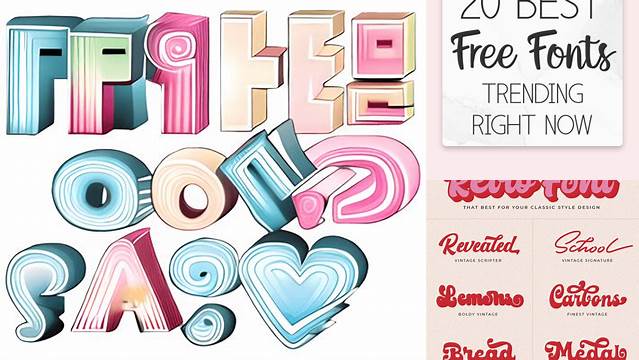
Lettering Font Free: Top Downloads For Creative Designs
Hey guys! Ready to dive into the awesome world of lettering fonts? Whether you're a seasoned designer or just starting out, having access to a variety of high-quality lettering fonts can seriously boost your creative projects. From elegant scripts to bold display fonts, the possibilities are endless. Let's explore where you can find some amazing lettering font free options and how to make the most of them. This guide will cover everything from the basics to more advanced tips, ensuring you're well-equipped to create stunning designs.
3. How to Identify High-Quality Free Lettering Fonts
Identifying high-quality free lettering fonts requires a keen eye and attention to detail. Start by examining the font's design characteristics, such as its consistency in weight, spacing, and letterforms. A well-designed font should have uniform thickness and balanced proportions, ensuring readability and visual appeal. Look for fonts that offer a complete character set, including uppercase and lowercase letters, numbers, punctuation marks, and symbols. Test the font in various sizes and contexts to assess its legibility and performance. Pay attention to the kerning (the spacing between letters) and adjust it if necessary to achieve optimal visual harmony. Moreover, consider the font's versatility and suitability for different design applications. A high-quality font should be adaptable to various styles and mediums, allowing you to use it effectively in diverse projects. Finally, read user reviews and ratings to get insights into the font's performance and reliability. A thorough evaluation process will help you distinguish between a mediocre font and a truly exceptional one.
4. Lettering Fonts Free for Cricut
For crafters and DIY enthusiasts using Cricut machines, finding lettering fonts free for Cricut is essential for creating personalized and unique projects. Cricut Design Space is compatible with a wide range of fonts, but not all fonts are optimized for cutting machines. When searching for fonts, prioritize those with clean lines and simple shapes to ensure smooth and precise cutting. Avoid fonts with overly intricate details or thin strokes, as these may be difficult for the Cricut to handle. Websites like FontBundles and Creative Fabrica often offer free font bundles specifically designed for crafters, including fonts that work well with Cricut machines. Additionally, you can upload your own fonts to Cricut Design Space, giving you even more flexibility and creative control. Before starting a project, always test the font on a small scale to ensure it cuts cleanly and accurately. Experiment with different materials and settings to achieve the best results. With the right lettering fonts, you can create stunning personalized gifts, home decor items, and more.
5. Lettering Fonts Free for Procreate
Procreate is a popular digital art application for iPad, and having access to a variety of lettering fonts free for Procreate can significantly enhance your artwork. Procreate allows you to import custom fonts, giving you the freedom to use any font you desire. When choosing fonts for Procreate, consider the style and mood of your artwork. Elegant scripts are perfect for creating sophisticated designs, while bold display fonts are ideal for making a statement. Websites like Creative Market and Design Cuts often offer free font packs that include fonts specifically designed for digital art. Additionally, you can find free fonts on websites like DaFont and FontSpace and import them into Procreate. To import a font, simply download the font file (usually in .otf or .ttf format) and open it on your iPad. Procreate will automatically recognize the font and add it to your font library. Experiment with different fonts and styles to find the perfect fit for your artwork. With the right lettering fonts, you can add a personal touch to your digital creations.
6. Calligraphy Lettering Fonts Free
Calligraphy lettering fonts free are perfect for adding an elegant and sophisticated touch to your designs. These fonts mimic the fluid strokes and graceful curves of traditional calligraphy, making them ideal for invitations, wedding stationery, and other special occasions. When searching for calligraphy fonts, look for those that capture the essence of hand-lettered calligraphy, with varying stroke widths and subtle flourishes. Websites like Font Squirrel and Google Fonts offer a selection of free calligraphy fonts that are suitable for both personal and commercial use. Some popular calligraphy fonts include Brush Script MT, Great Vibes, and Allura. Experiment with different calligraphy fonts to find the one that best suits your style and project. Use these fonts sparingly and in combination with simpler fonts to create a balanced and visually appealing design. Practice using these fonts in different sizes and colors to achieve the desired effect. With the right calligraphy font, you can create stunning and memorable designs.
7. Script Lettering Fonts Free
Script lettering fonts free are another excellent choice for adding a touch of elegance and personality to your designs. These fonts mimic the flowing, handwritten style of cursive writing, making them ideal for invitations, logos, and branding materials. When choosing script fonts, look for those that are easy to read and have a natural, flowing appearance. Avoid fonts with overly elaborate details or awkward connections between letters. Websites like DaFont and FontSpace offer a wide variety of free script fonts to choose from, ranging from classic styles to more modern and whimsical designs. Some popular script fonts include Pacifico, Lobster, and Dancing Script. Use script fonts sparingly and in combination with simpler fonts to create a balanced and visually appealing design. Experiment with different colors and sizes to achieve the desired effect. With the right script font, you can add a personal and inviting touch to your designs.
8. Vintage Lettering Fonts Free
Vintage lettering fonts free can transport your designs back in time, adding a touch of nostalgia and retro charm. These fonts often feature distressed textures, unique letterforms, and decorative elements that evoke the look and feel of vintage typography. When searching for vintage fonts, look for those that capture the essence of different eras, such as Art Deco, mid-century modern, and Victorian. Websites like MyFonts and Creative Market offer a wide selection of vintage fonts, some of which are available for free. Some popular vintage fonts include Playfair Display, Bebas Neue, and Oswald. Use vintage fonts to create eye-catching posters, logos, and packaging designs. Combine them with vintage-inspired illustrations and color palettes to create a cohesive and authentic look. Experiment with different textures and effects to enhance the vintage feel. With the right vintage font, you can create designs that stand out and capture the imagination.
9. Bold Lettering Fonts Free
For designs that demand attention, bold lettering fonts free are the way to go. These fonts feature thick, heavy strokes that make a strong visual impact, making them ideal for headlines, titles, and logos. When choosing bold fonts, look for those that are legible and have a balanced appearance. Avoid fonts that are overly condensed or have awkward proportions. Websites like Google Fonts and Font Squirrel offer a wide selection of free bold fonts that are suitable for both personal and commercial use. Some popular bold fonts include Montserrat, Open Sans, and Roboto. Use bold fonts to create eye-catching headlines and call-to-actions. Combine them with lighter fonts to create a contrast and hierarchy. Experiment with different colors and sizes to achieve the desired effect. With the right bold font, you can create designs that grab attention and make a lasting impression.
10. Modern Lettering Fonts Free
Modern lettering fonts free are characterized by their clean lines, geometric shapes, and minimalist design. These fonts are perfect for creating sleek and contemporary designs that appeal to a modern audience. When choosing modern fonts, look for those that are legible and have a balanced appearance. Avoid fonts that are overly decorative or have distracting elements. Websites like Behance and Dribbble often showcase free modern fonts that are created by talented designers. Some popular modern fonts include Lato, Raleway, and Poppins. Use modern fonts to create stylish logos, websites, and branding materials. Combine them with geometric shapes and minimalist layouts to create a cohesive and contemporary look. Experiment with different colors and typography techniques to achieve the desired effect. With the right modern font, you can create designs that are both visually appealing and effective.
11. Decorative Lettering Fonts Free
Adding flair to your designs is easy with decorative lettering fonts free. These fonts are designed to be visually striking and attention-grabbing, incorporating unique shapes, embellishments, and artistic elements that set them apart from standard typefaces. They're ideal for headlines, posters, and designs where you want to make a bold statement. Look for decorative fonts on sites like FontStruct and The League of Moveable Type. Remember to use them sparingly to maintain readability and avoid overwhelming your design. Some popular decorative fonts include Amatic SC, Bangers, and Luckiest Guy. Experiment with colors, shadows, and outlines to enhance their impact. Decorative fonts can transform an ordinary design into something truly memorable.
12. Handwritten Lettering Fonts Free
For a personal and intimate touch, handwritten lettering fonts free are the perfect choice. These fonts mimic the look and feel of natural handwriting, adding warmth and authenticity to your designs. They're great for invitations, thank you notes, and any project where you want to convey a sense of sincerity. Explore options on sites like 1001 Fonts and FontGet. Be sure to check the readability of each font before using it in your designs. Some popular handwritten fonts include Indie Flower, Patrick Hand, and Coming Soon. Use these fonts to create a personal connection with your audience, making them feel like you're speaking directly to them.
13. Cursive Lettering Fonts Free
Cursive lettering fonts free bring an elegant and flowing style to your designs, reminiscent of traditional penmanship. These fonts are ideal for invitations, wedding stationery, and projects that require a touch of sophistication. Look for options that offer smooth connections between letters and a natural rhythm. Sites like Creative Fabrica (freebies section) and FontBundles often have selections of cursive fonts. Be cautious when using them in body text, as readability can be challenging. Some popular cursive fonts include Arizonia, Black Jack, and Scriptina. Use these fonts to add a touch of class to your designs, making them stand out with their graceful curves and elegant flourishes.
14. Gothic Lettering Fonts Free
For a bold and dramatic look, gothic lettering fonts free are an excellent choice. These fonts, inspired by medieval calligraphy, feature strong, angular shapes and intricate details. They're perfect for creating a sense of power and mystery, making them ideal for posters, book covers, and designs with a dark or edgy theme. Find these fonts on sites like UrbanFonts and FreeTypography. Use them sparingly, as their complexity can make them difficult to read in large blocks of text. Some popular gothic fonts include Blackletter, Old English Text MT, and UnifrakturCook. With the right gothic font, you can add a touch of drama and intrigue to your designs, capturing the attention of your audience.
15. Retro Lettering Fonts Free
Retro lettering fonts free allow you to bring a touch of nostalgia to your projects, evoking the design styles of past decades. These fonts often feature bold shapes, bright colors, and playful elements that capture the spirit of different eras, from the 1950s to the 1980s. Look for them on sites like Lost Type Co-op and RetroSupply Co. (often offers freebies). Use them to create eye-catching posters, logos, and branding materials that transport your audience back in time. Some popular retro fonts include Bauhaus 93, Cooper Black, and Lobster. Experiment with vintage color palettes and textures to enhance the retro feel, creating designs that are both stylish and nostalgic.
16. Pixel Lettering Fonts Free
Pixel lettering fonts free are perfect for creating a nostalgic, 8-bit aesthetic. These fonts mimic the blocky, pixelated look of early computer graphics, making them ideal for video game designs, tech-themed projects, and retro-inspired artwork. Sites like FontStruct and Open Font Library offer a variety of pixel fonts. Use them to create eye-catching headlines, logos, and graphics that capture the essence of vintage technology. Some popular pixel fonts include Press Start 2P, 8BIT WONDER, and Perfect DOS VGA 437. Experiment with pixel art techniques and color palettes to enhance the retro feel, creating designs that are both fun and engaging.
17. Outline Lettering Fonts Free
Outline lettering fonts free offer a versatile and modern look for your designs. These fonts feature hollow letterforms, creating a clean and minimalist aesthetic that works well in a variety of contexts. They're perfect for logos, headings, and designs where you want to create a subtle yet impactful visual effect. Look for them on sites like Pixel Surplus and Dealjumbo. Use outline fonts to add a touch of sophistication to your projects, making them stand out with their understated elegance. Some popular outline fonts include Bebas Neue, Montserrat, and Raleway. Experiment with different background colors and effects to enhance their visibility, creating designs that are both stylish and effective.
18. Shadow Lettering Fonts Free
Adding depth and dimension to your designs is easy with shadow lettering fonts free. These fonts feature a built-in shadow effect, creating a 3D appearance that makes your text stand out. They're perfect for headlines, posters, and designs where you want to create a bold and eye-catching visual impact. Sites like GraphicBurger and Free Design Resources often offer these. Use shadow fonts to add a touch of drama and sophistication to your projects, making them more engaging and visually appealing. Some popular shadow fonts include Impact, Arial Black, and Futura. Experiment with different shadow colors and angles to achieve the desired effect, creating designs that are both striking and memorable.
19. 3D Lettering Fonts Free
3D lettering fonts free take your designs to another dimension, adding depth and realism to your text. These fonts create the illusion of three-dimensional letters, making them perfect for headlines, posters, and designs where you want to create a strong visual impact. You can often find these on sites like Behance and Dribbble, where designers share their creations. However, true 3D lettering fonts that can be directly typed are less common as free downloads; more often, what's available are fonts with 3D effects applied. Some popular techniques involve using layered fonts or adding 3D effects in software like Photoshop or Illustrator. Use 3D lettering to make your designs pop, capturing attention and creating a memorable impression.
20. Eroded Lettering Fonts Free
For a gritty, distressed look, eroded lettering fonts free are an excellent choice. These fonts simulate the effect of wear and tear, adding texture and character to your designs. They're perfect for projects with a vintage, industrial, or urban theme. Look for them on sites like FontSpace and DaFont, using keywords like "grunge" or "distressed" to narrow your search. Be sure to check the font license before using it in commercial projects. Eroded fonts can bring a raw, authentic feel to your designs, conveying a sense of history and resilience.
21. Distorted Lettering Fonts Free
Adding a unique and unconventional touch to your designs is easy with distorted lettering fonts free. These fonts feature unusual shapes, irregular lines, and unconventional forms that make them stand out from standard typefaces. They're perfect for creating eye-catching posters, logos, and designs that challenge the norm. Find them on sites like Free Typography and Urban Fonts, and use them to inject personality and creativity into your projects. Remember to use them judiciously, as excessive distortion can hinder readability.
22. Layered Lettering Fonts Free
Layered lettering fonts free allow you to create complex and visually appealing typography effects by stacking different font layers on top of each other. These fonts typically consist of multiple styles (e.g., base, shadow, outline) that can be combined to achieve a variety of looks. Find them on sites like Creative Market (check for freebies) and Design Cuts (also offering free resources). While fewer true layered lettering fonts free may be readily available, many tutorials online can guide you on creating similar effects by layering different styles in design software. Layered fonts are great for adding depth and dimension to your designs, making them more engaging and eye-catching.
23. Animated Lettering Fonts Free
Animated lettering fonts free are perfect for adding movement and dynamism to your designs. These fonts feature letters that move, rotate, or change shape, creating a captivating visual effect. They're ideal for websites, videos, and interactive projects. Please note that true animated lettering fonts free, directly usable as fonts, are rare. More commonly, animation is achieved through software like Adobe After Effects, where you animate individual letters or text layers. You might find free templates or tutorials online to help you create animated lettering effects, even if the fonts themselves are static.
24. Color Lettering Fonts Free
Color lettering fonts free bring a vibrant and eye-catching element to your designs, allowing you to incorporate multiple colors within a single font. These fonts utilize newer font technologies like COLR/CPAL and SVG, enabling embedded color information directly within the font file. Note that older software may not fully support these font formats, so compatibility is key. You can find some examples on sites like OpenType and Github, where developers share open-source font projects. Color fonts can make your designs more engaging and memorable, adding a touch of creativity and personality.
25. Rounded Lettering Fonts Free
Rounded lettering fonts free offer a friendly and approachable aesthetic, featuring soft, curved edges instead of sharp angles. These fonts are perfect for creating a welcoming and inviting feel in your designs. You can find them easily on Google Fonts and Font Squirrel. Some popular rounded fonts include Nunito, Quicksand, and Cabin. Rounded fonts are versatile and work well in various contexts, from logos to body text, adding a touch of warmth and friendliness to your projects.
26. Condensed Lettering Fonts Free
Condensed lettering fonts free are designed to be narrow and space-saving, allowing you to fit more text into a limited area. These fonts are ideal for headlines, captions, and designs where space is at a premium. Sites like DaFont and 1001 Fonts offer a wide range of condensed fonts. Some popular options include Bebas Neue, Oswald, and Montserrat. Condensed fonts can help you maximize the use of space in your designs without sacrificing readability.
27. Expanded Lettering Fonts Free
In contrast to condensed fonts, expanded lettering fonts free are wider and more spacious, creating a bold and impactful visual presence. These fonts are perfect for headlines, posters, and designs where you want to make a statement. You can often find expanded fonts as variations within font families on Google Fonts or Adobe Fonts (if you have a subscription). Expanded fonts can add a touch of grandeur and sophistication to your designs, commanding attention and creating a strong visual impact.
28. Sans Serif Lettering Fonts Free
Sans serif lettering fonts free are characterized by their clean, simple lines and lack of serifs (the small decorative strokes at the end of letterforms). These fonts are versatile and modern, making them ideal for websites, logos, and body text. Google Fonts is an excellent resource for free sans serif fonts. Some popular options include Roboto, Open Sans, and Lato. Sans serif fonts offer excellent readability and a contemporary aesthetic, making them a staple in modern design.
29. Serif Lettering Fonts Free
Serif lettering fonts free, on the other hand, feature serifs that add a touch of tradition and elegance to your designs. These fonts are often used in print materials, such as books and newspapers, as well as in logos and headlines. Google Fonts also offers a variety of free serif fonts. Some popular choices include Merriweather, Playfair Display, and Roboto Slab. Serif fonts offer a timeless and sophisticated look, making them a great choice for designs that require a touch of class.
30. Monospace Lettering Fonts Free
Monospace lettering fonts free are characterized by having each letter occupy the same amount of horizontal space. This gives them a distinct, typewriter-like appearance, making them ideal for code, technical documentation, and retro-themed designs. Google Fonts offers several free monospace fonts. Some popular options include Courier New, Fira Code, and Source Code Pro. Monospace fonts offer excellent readability in contexts where alignment is crucial, and they can also add a touch of vintage charm to your designs.